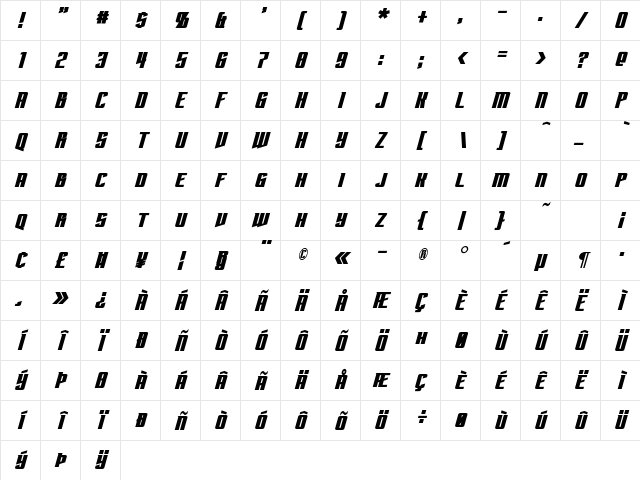
Subspace Bold Italic
Design Context for Subspace
Subspace is a composed and adaptable typeface that performs quietly and consistently across a wide range of design contexts. The slanted form adds forward momentum and visual energy. Its bold stroke weight gives it real presence on the page.